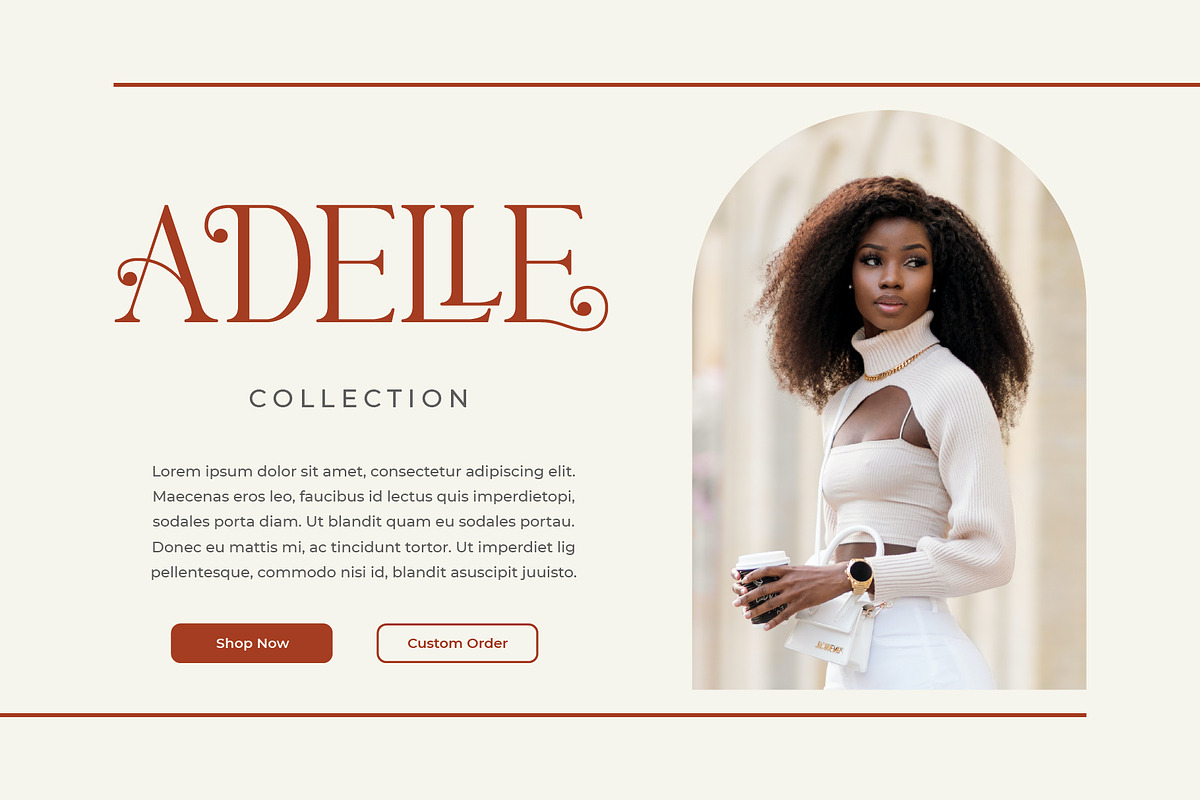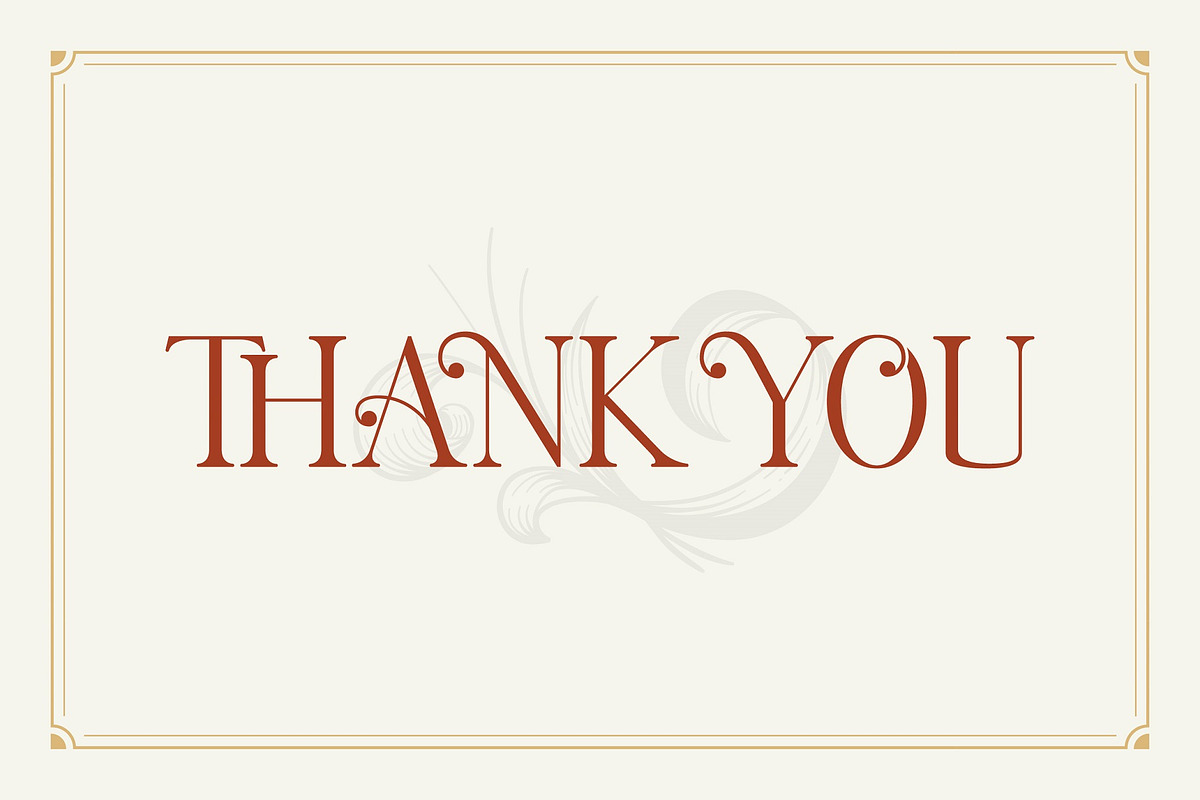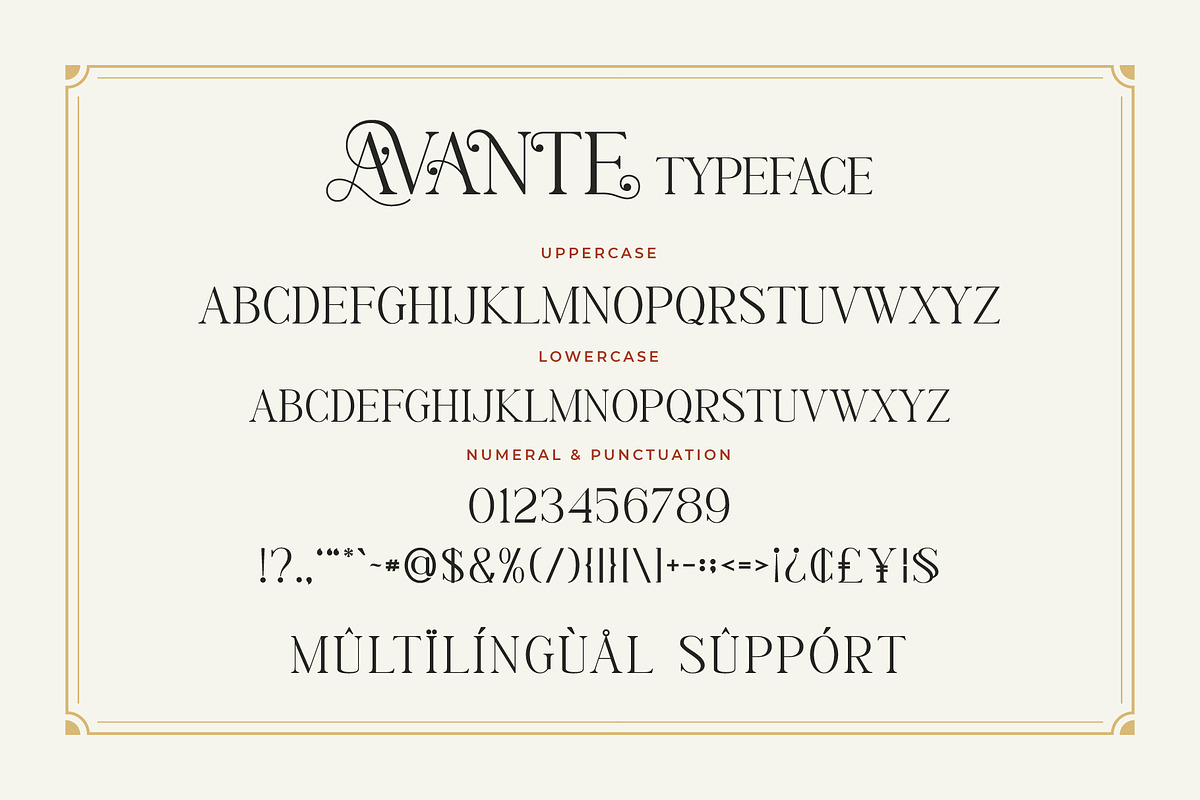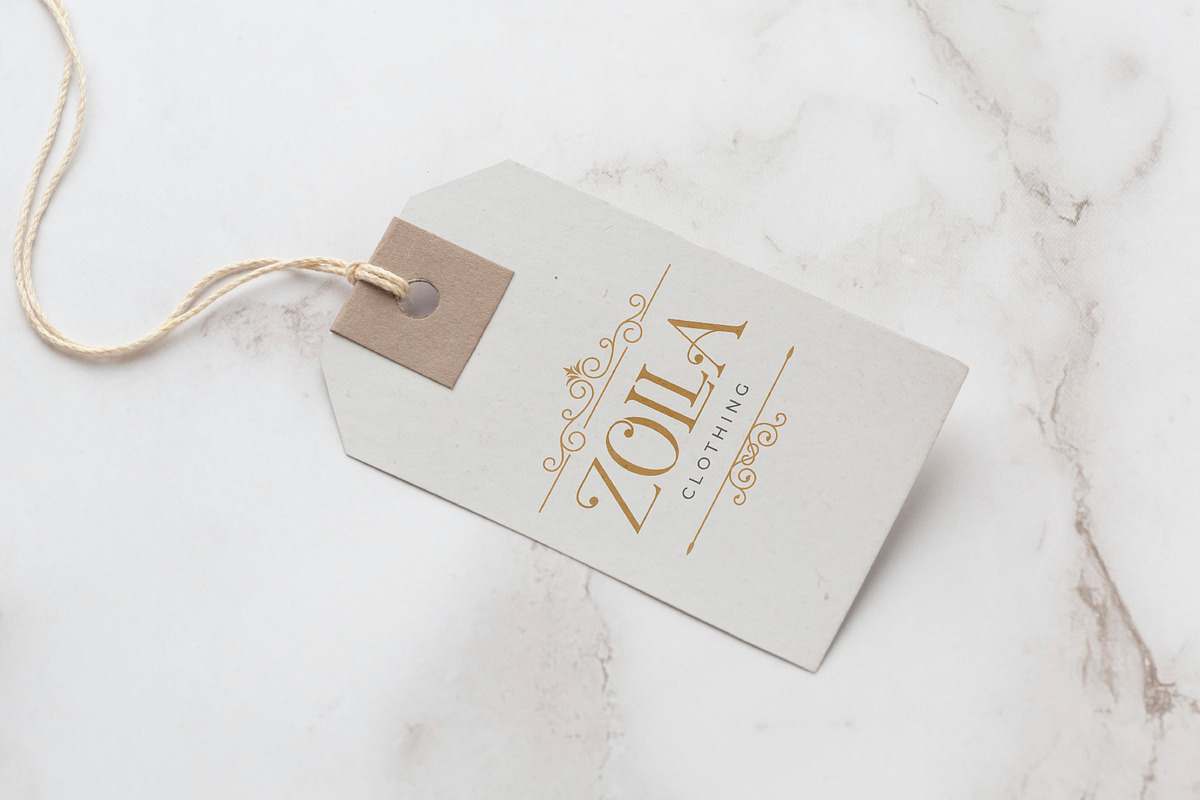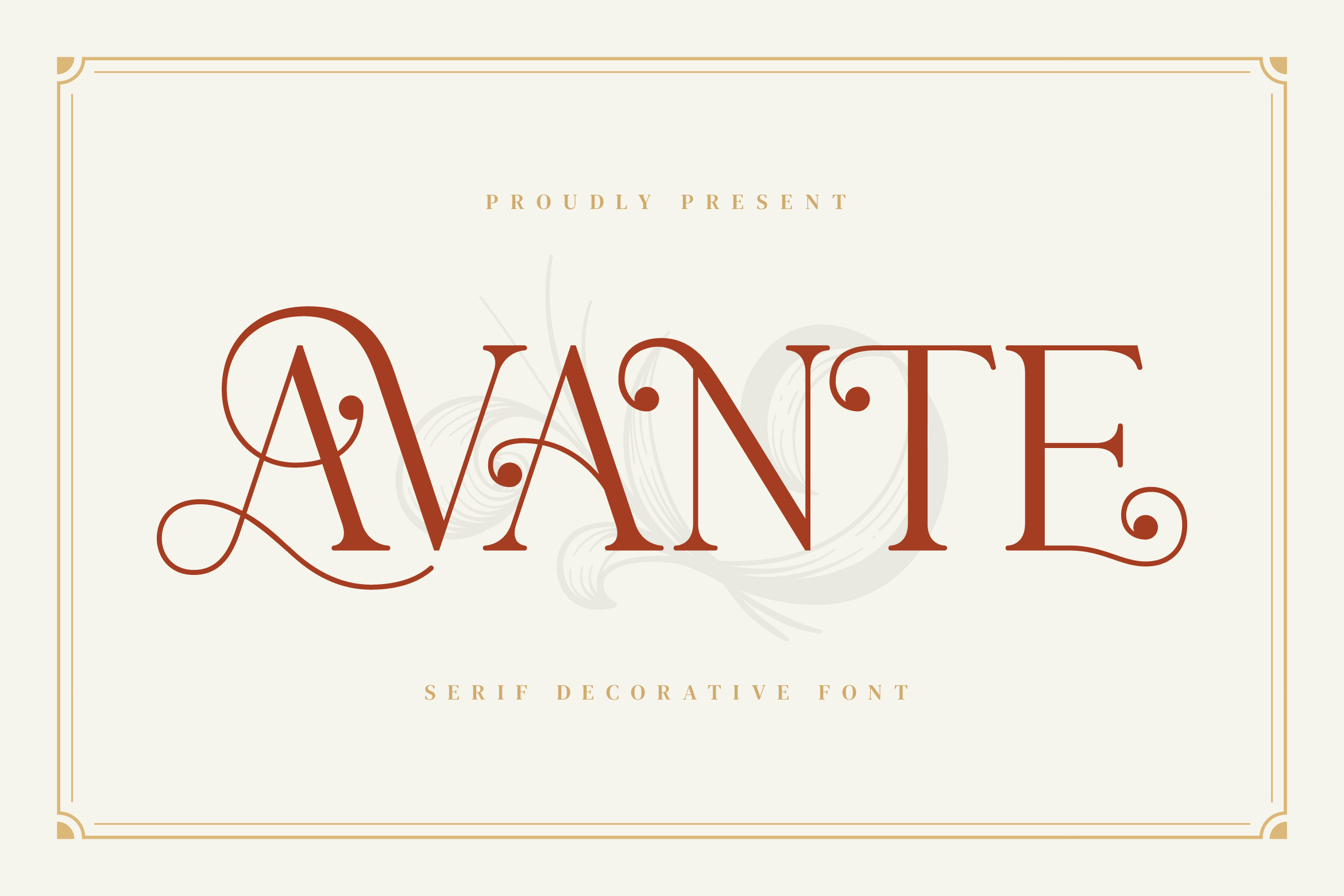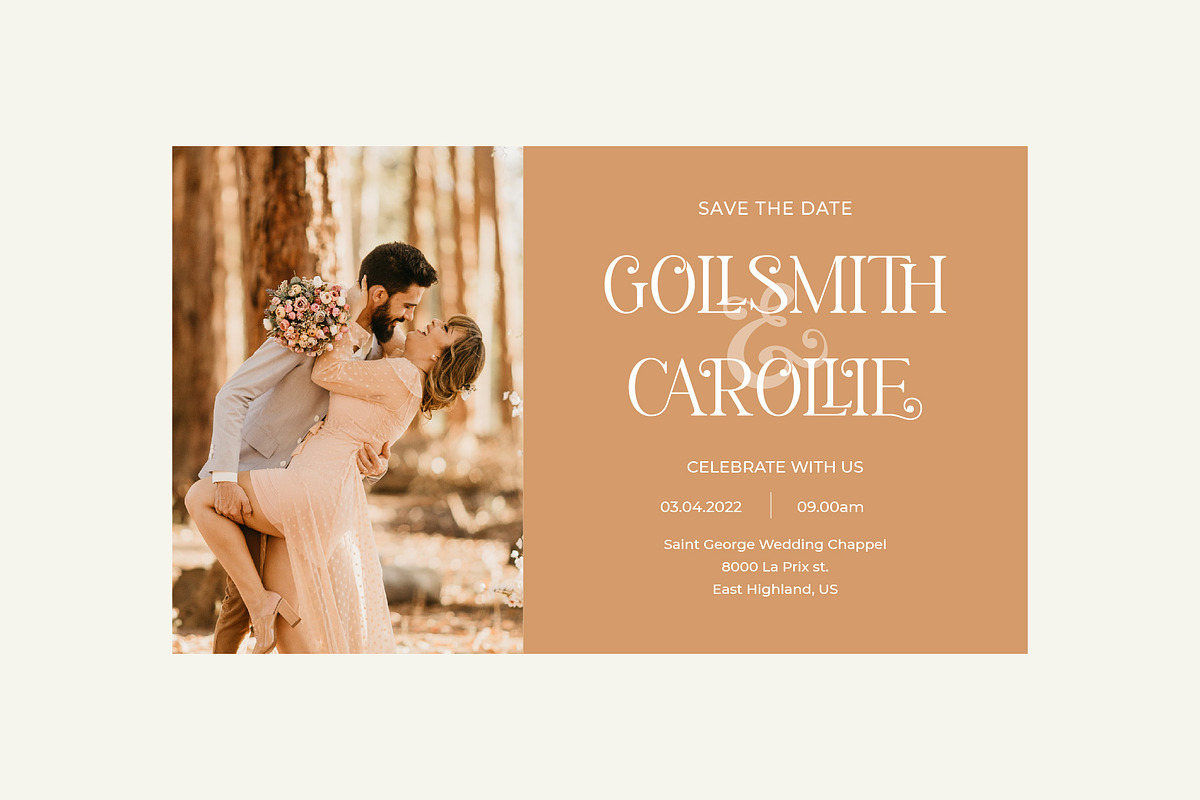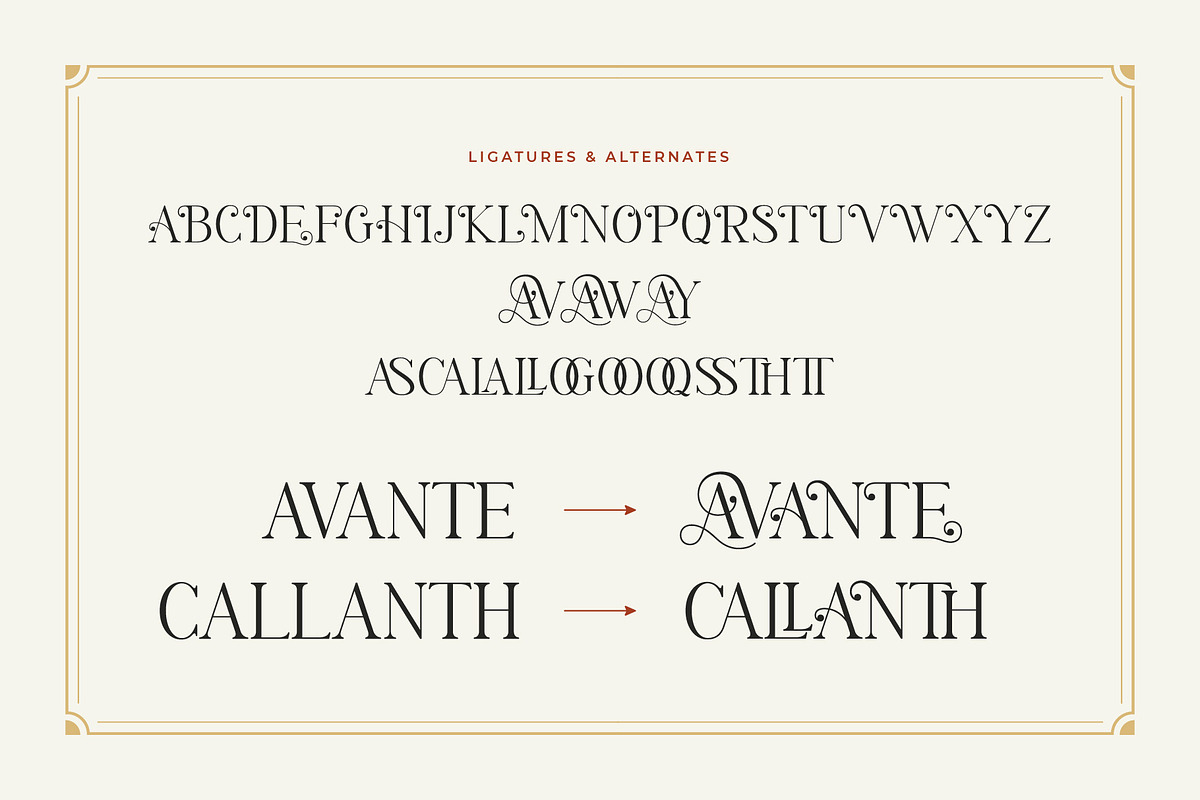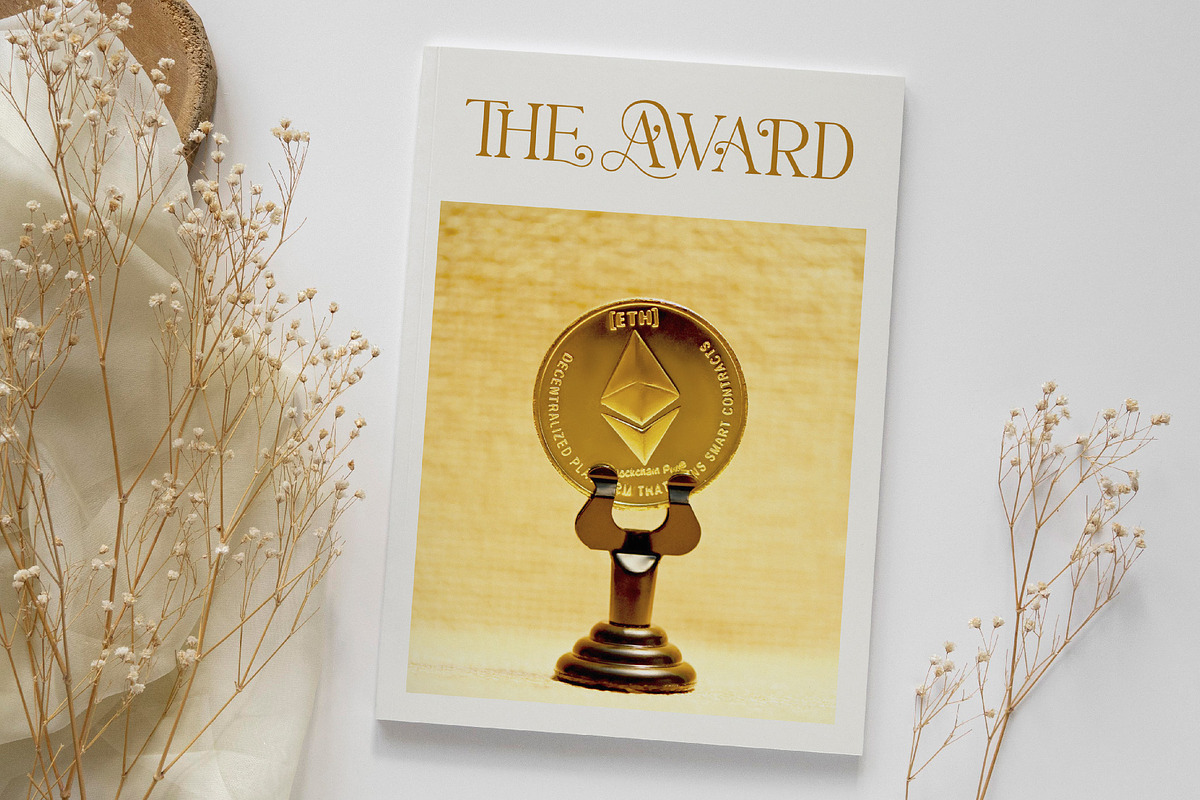
Avante - Modern Classy Font
AVANTE Stylish Ligature Typeface, inspired by the famous minimalist logo perfect for the purposes of designing templates, brochures, videos, advertising branding, logos and more.